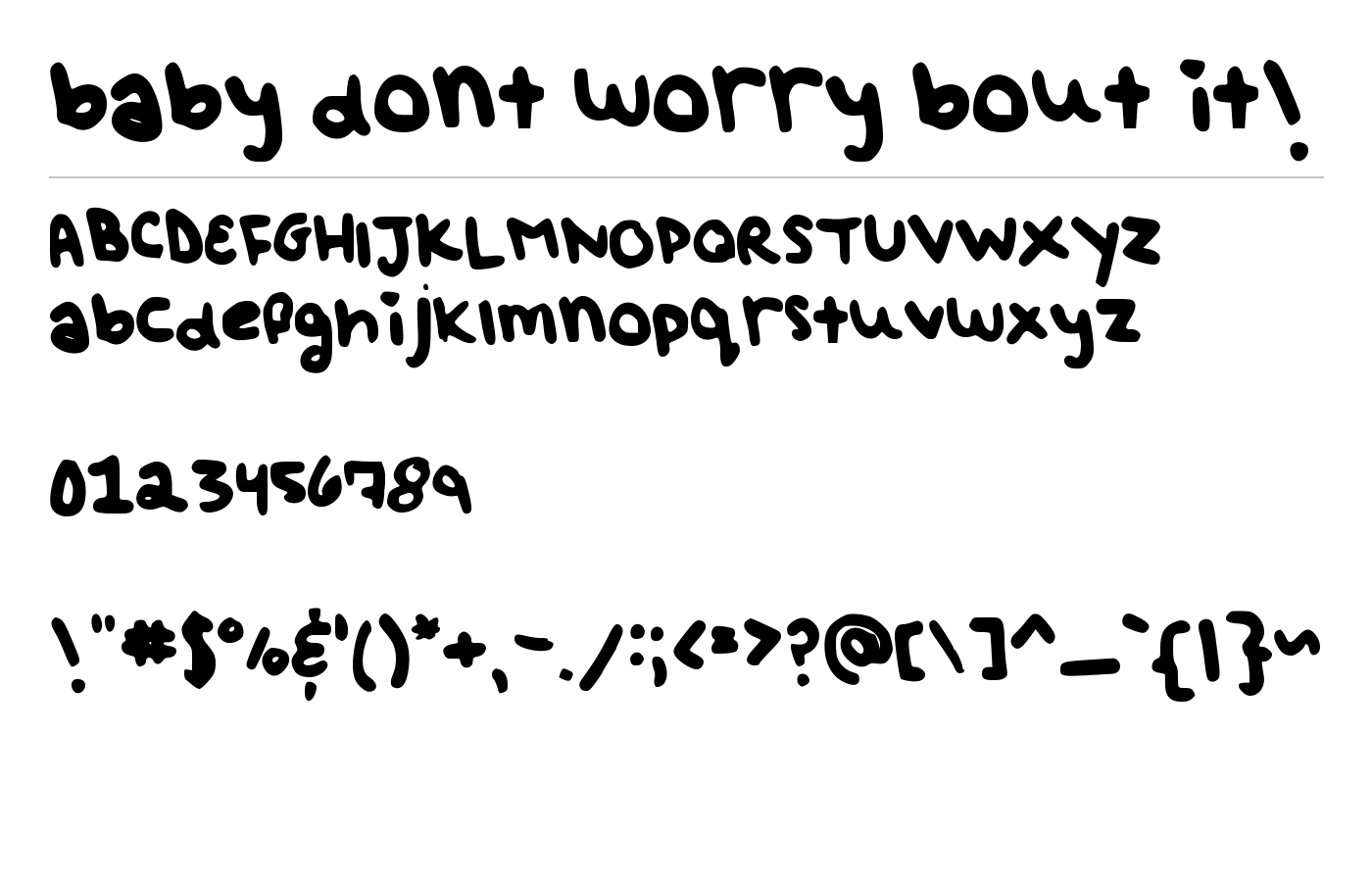
"baby dont worry bout it!" is a playful and casual handwritten font with thick, rounded strokes and an informal, friendly feel. Its quirky letterforms and uneven shapes give it a charming, approachable personality, perfect for adding a fun, relaxed vibe to kids’ projects, casual branding, or creative headlines. This font works best where a warm, cheerful tone is desired, making it ideal for posters, social media, and packaging aimed at a youthful audience.
baby dont worry bout it! Font